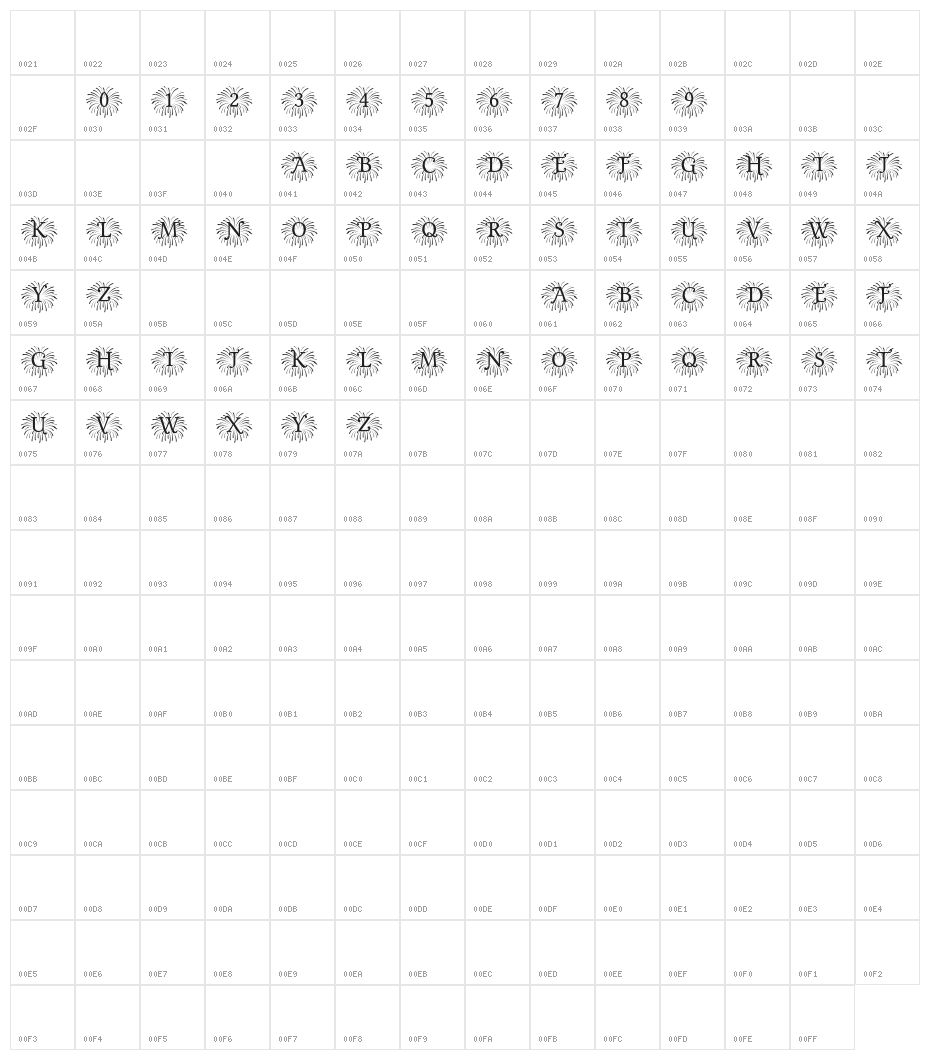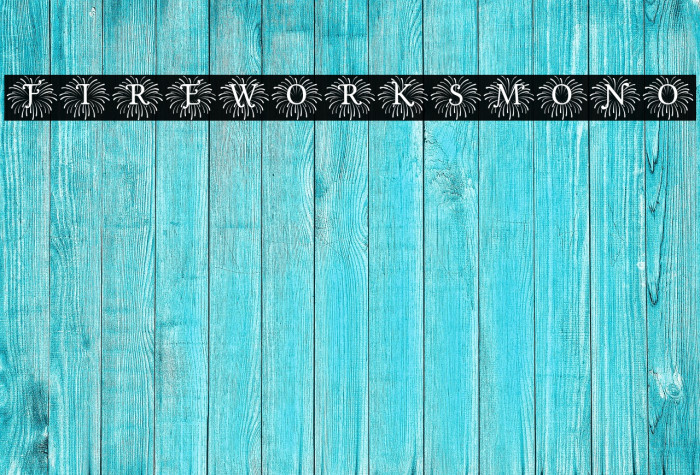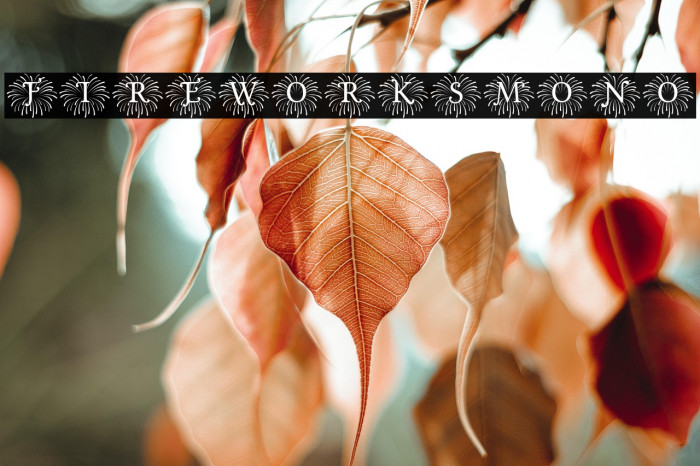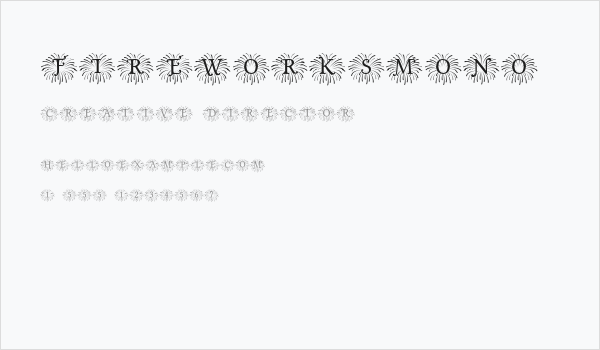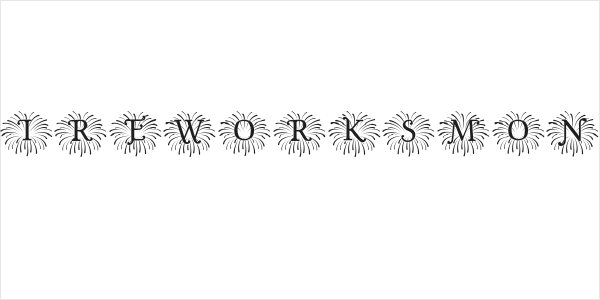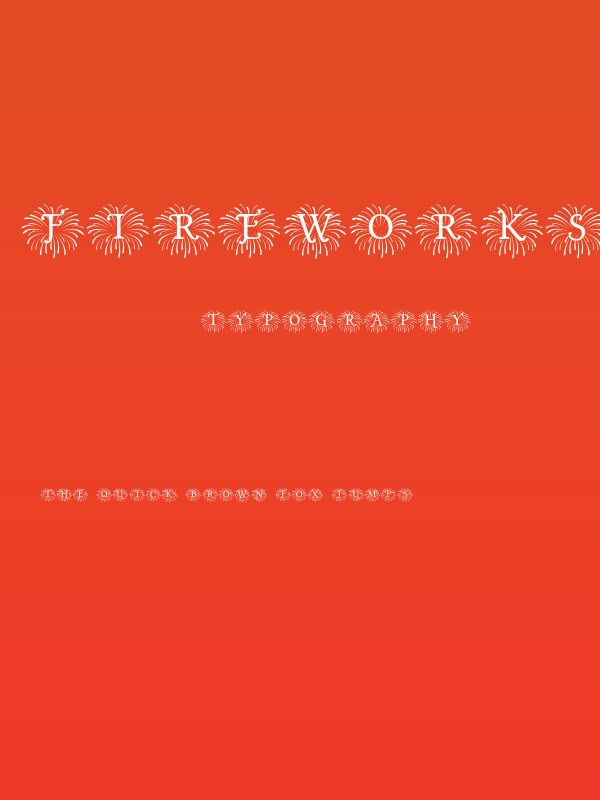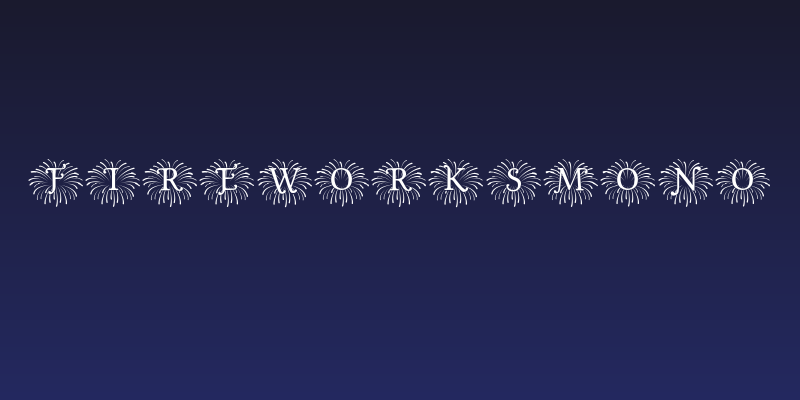
Fireworks_Mono Font
Fireworks_Mono Description
This font features a unique and decorative style, with each character surrounded by a burst resembling fireworks. The design is intricate, with lines radiating outward from each letter, creating a dynamic and festive appearance. The characters are evenly spaced, maintaining a consistent and balanced look across both uppercase and lowercase letters, as well as numbers and special characters. The overall aesthetic is playful and eye-catching, making it suitable for celebratory or themed projects.
| Proposed Projects | Ideal for party invitations, festive banners, event posters, and any design requiring a celebratory touch. |